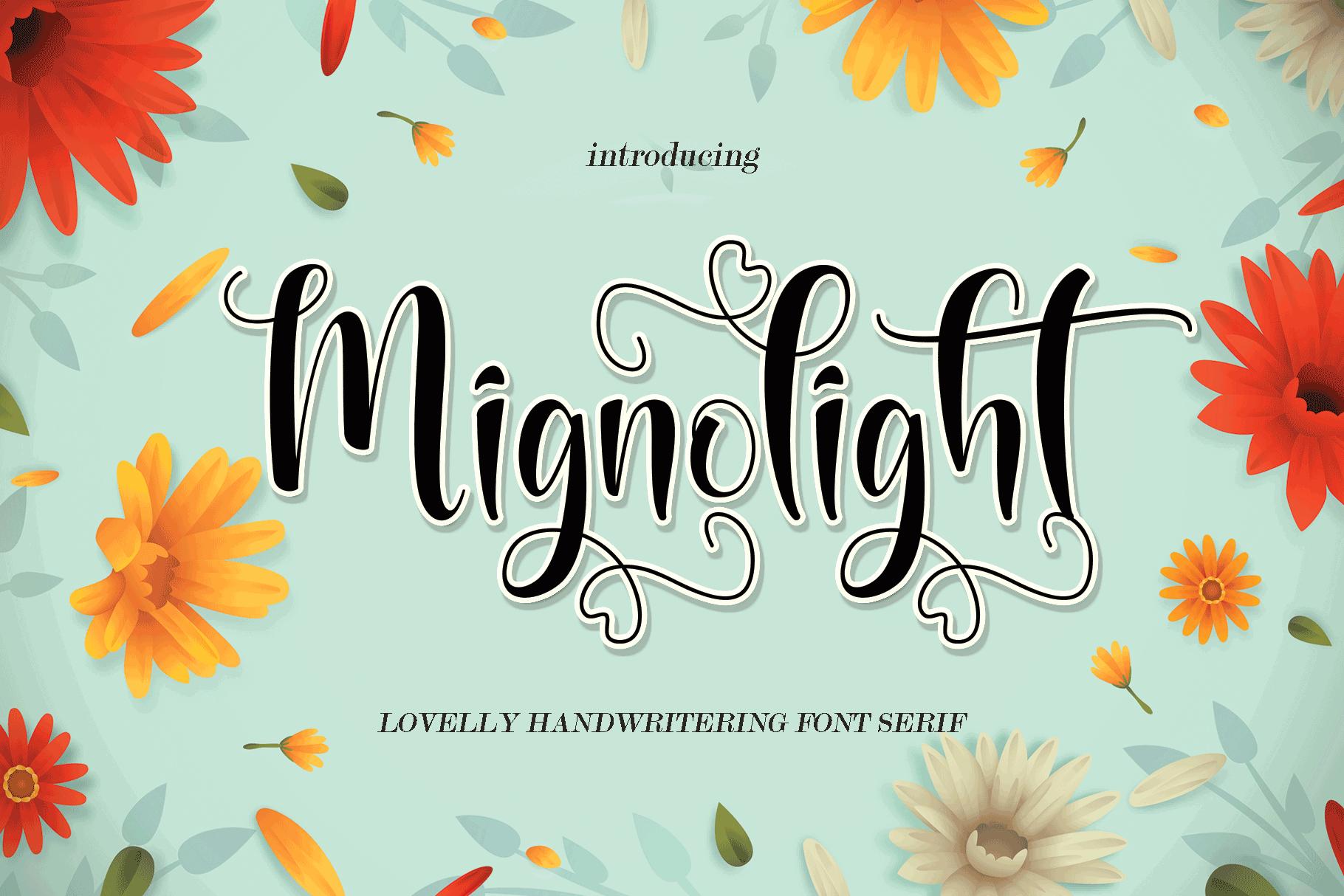
Mignolight Font Description
Mignolight is an elegant and incredibly delicate handwritten font. It is PUA encoded, which means you can access all of the glyphs and swashes with ease! It features a varying baseline, smooth lines, gorgeous glyphs and stunning alternates. Fall in love with its versatile style and use it to create spectacular designs!